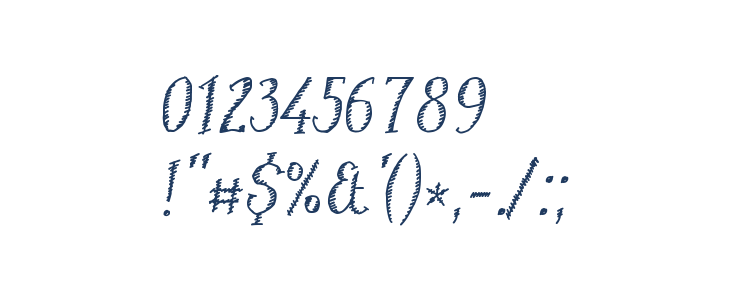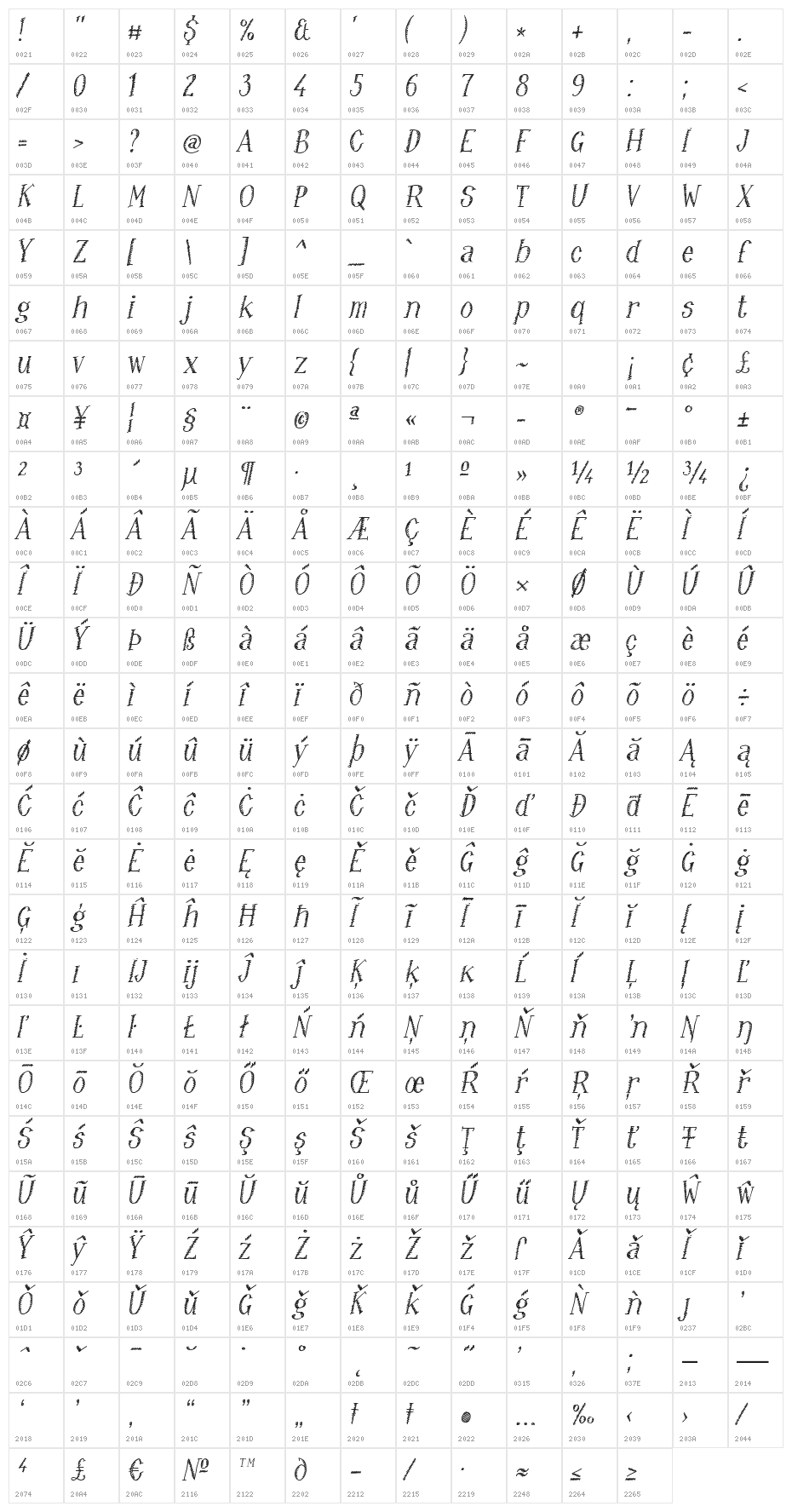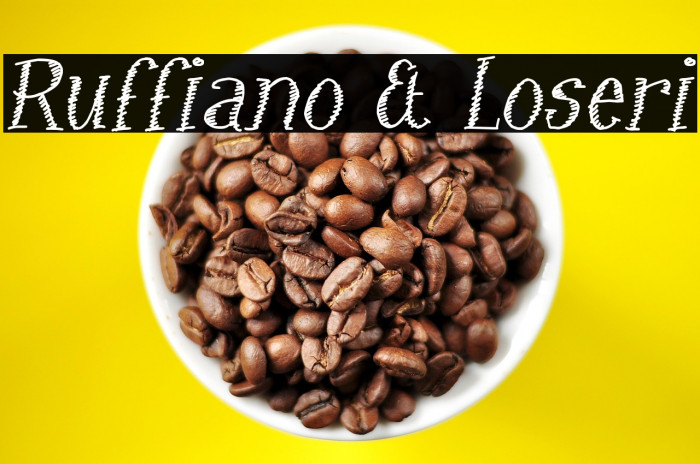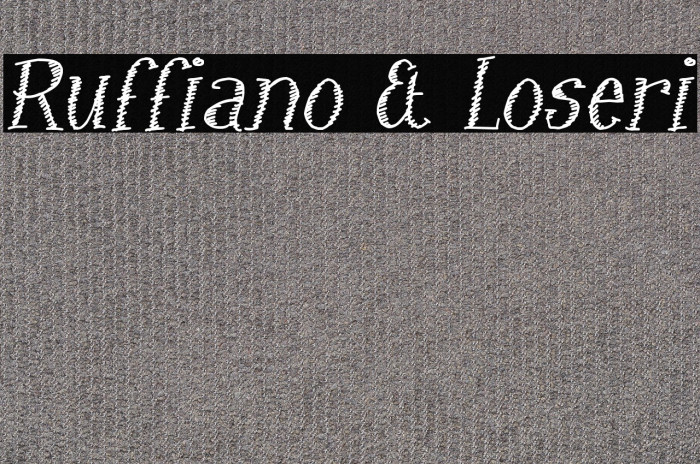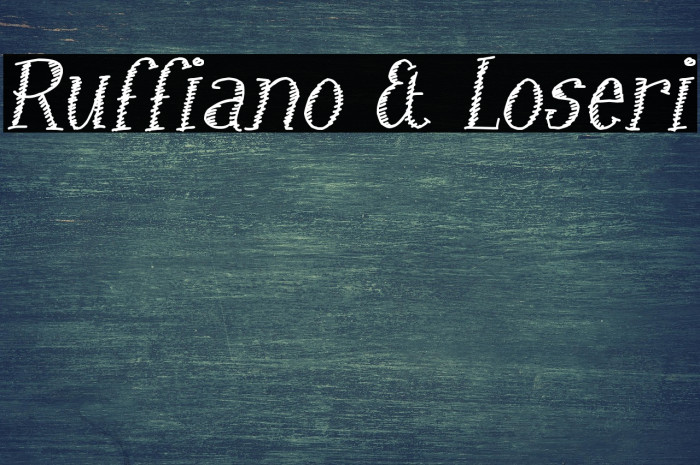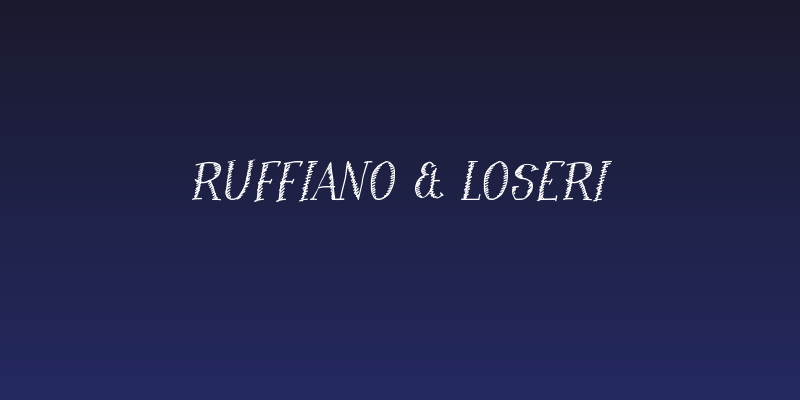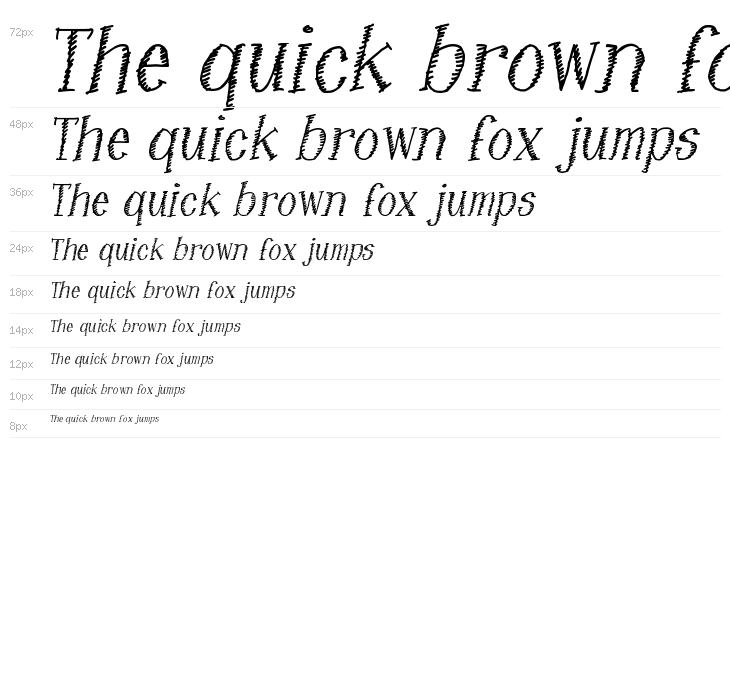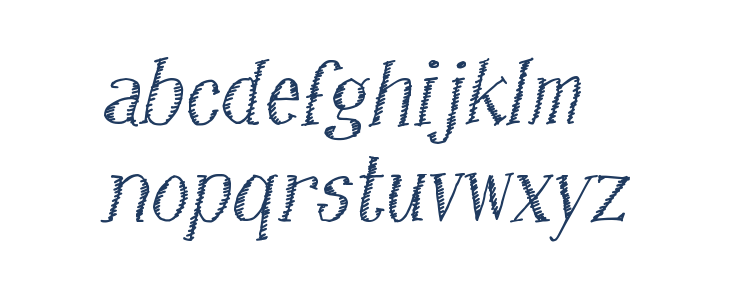
Ruffiano & Loseri Font
Ruffiano & Loseri Description
This font features a dynamic and energetic style with a distinct slanted appearance. The characters are designed with a bold, textured look, resembling brush strokes or a hand-drawn effect. The uppercase and lowercase letters maintain a consistent slant, adding a sense of movement and flair. Numbers and special characters follow the same stylistic approach, ensuring uniformity across all glyphs. The font's unique texture and slant make it stand out, offering a creative and artistic vibe.
Proposed ProjectsIdeal for creative projects such as posters, branding, and packaging design where a bold and artistic statement is desired.